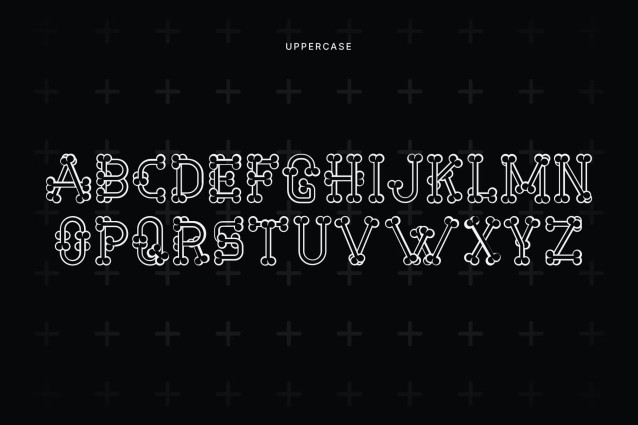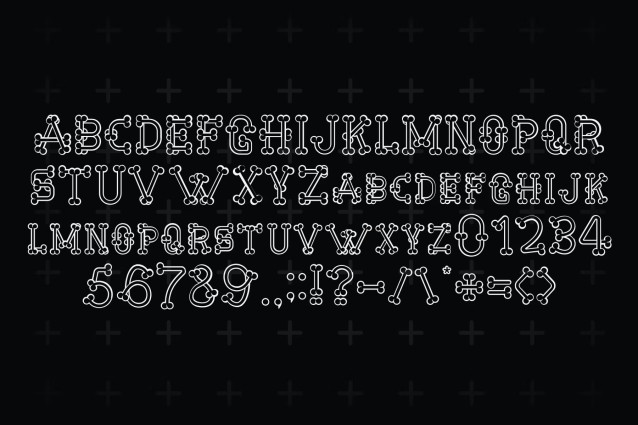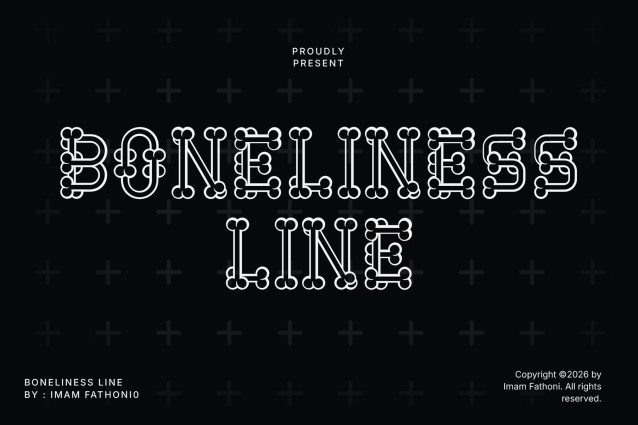
Boneliness Line is a minimalist display font built from thin, bone-shaped strokes in a clean line style, capturing the eerie stillness of a skeleton with a lighter, more graphic touch than typical horror fonts. The delicate joints and tapered ends give it a haunting, skeletal rhythm while staying sleek and modern.
Perfect For
Halloween decor and invitations, minimalist horror branding, gothic apparel and streetwear, tattoo studio logos, spooky party signage, skeleton-themed packaging and labels, dark aesthetic social media content, book and game covers, seasonal merchandise, edgy greeting cards.